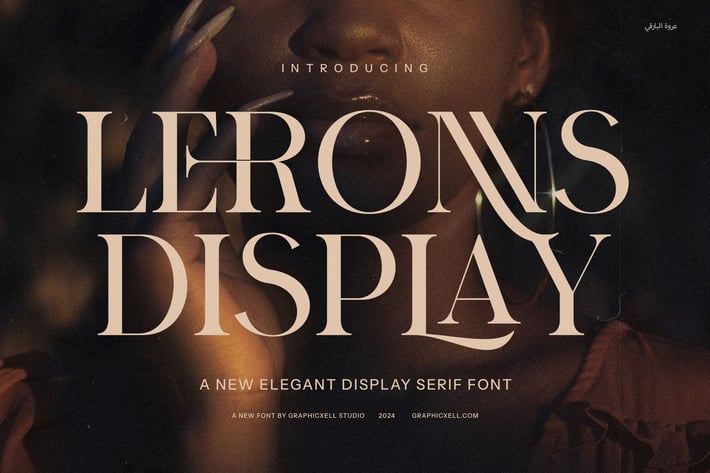
Leronns Elegant Serif Font
Leronns Elegant Serif Font is a sophisticated typeface that brings a timeless, refined touch to any design. Crafted with modern sensibilities, this elegant serif font seamlessly combines classic charm with contemporary flair. Its meticulously designed ligatures and alternate forms set it apart, offering an array of creative possibilities that elevate your branding, logo, or layout projects.
The refined curves and sharp edges of the serifs enhance the font's legibility while maintaining an air of luxury and grace. Leronns is an ideal choice for projects that require a distinctive visual identity, such as upscale boutiques, food packaging, websites, and product advertisements. Whether you're designing a high-end brand or a stylish editorial spread, this font brings sophistication to the forefront.
Versatile yet unique, Leronns Elegant Serif Font shines in a variety of uses, from modern corporate branding to vintage-inspired designs. The font's alternates and ligatures allow for personalized touch, making it perfect for creating custom logos or adding a sense of elegance to digital and print layouts.
Designed to impress, Leronns is perfect for a wide range of industries, including fashion, beauty, luxury products, and fine dining. Its modern appeal, combined with a classic structure, makes it a must-have for designers looking to make a lasting impression with their work.
The refined curves and sharp edges of the serifs enhance the font's legibility while maintaining an air of luxury and grace. Leronns is an ideal choice for projects that require a distinctive visual identity, such as upscale boutiques, food packaging, websites, and product advertisements. Whether you're designing a high-end brand or a stylish editorial spread, this font brings sophistication to the forefront.
Versatile yet unique, Leronns Elegant Serif Font shines in a variety of uses, from modern corporate branding to vintage-inspired designs. The font's alternates and ligatures allow for personalized touch, making it perfect for creating custom logos or adding a sense of elegance to digital and print layouts.
Designed to impress, Leronns is perfect for a wide range of industries, including fashion, beauty, luxury products, and fine dining. Its modern appeal, combined with a classic structure, makes it a must-have for designers looking to make a lasting impression with their work.